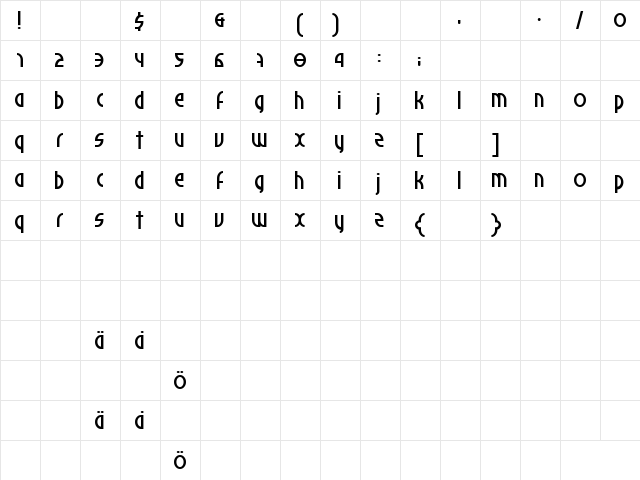
Palomino Regular
Design Context for Palomino Typeface
Palomino is a composed and adaptable typeface that performs quietly and consistently across a wide range of design contexts.